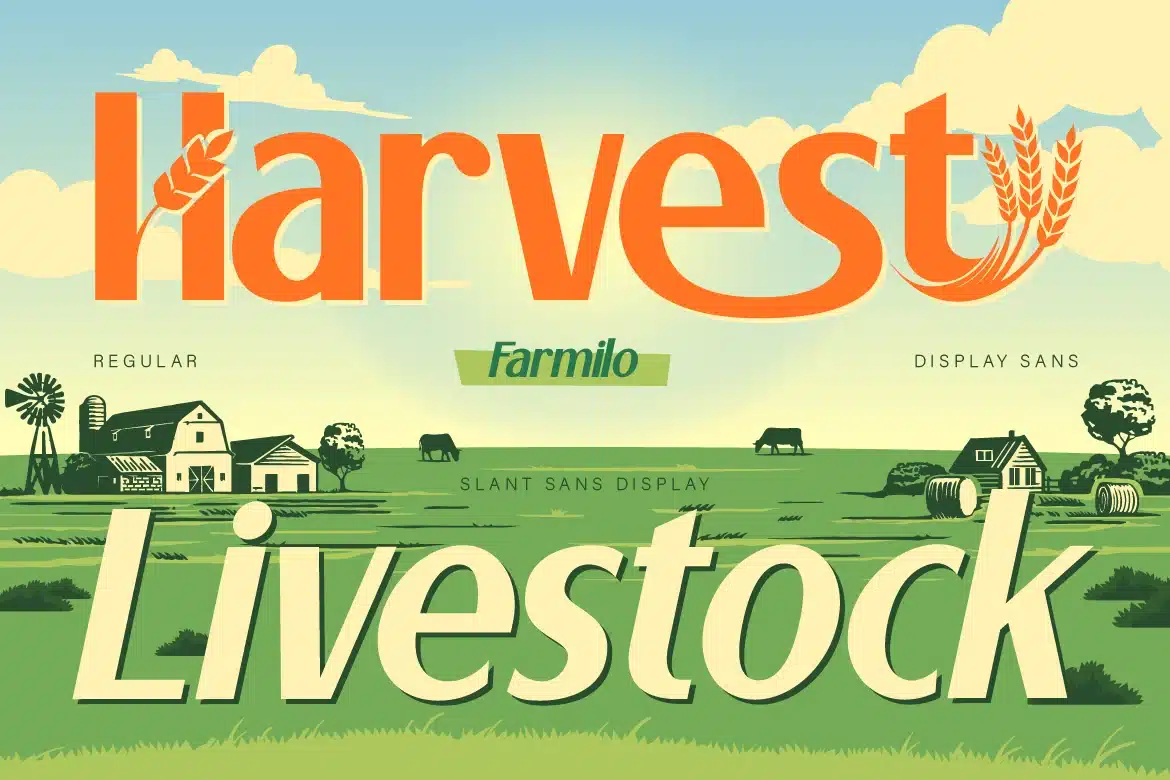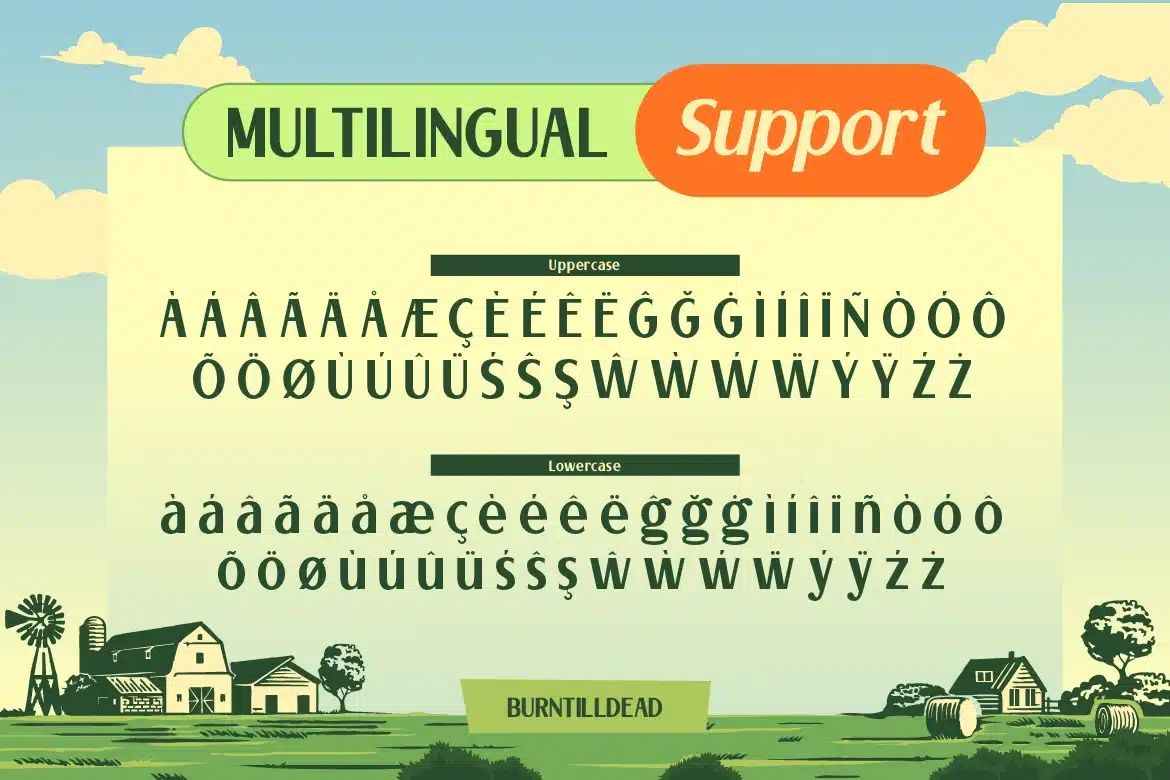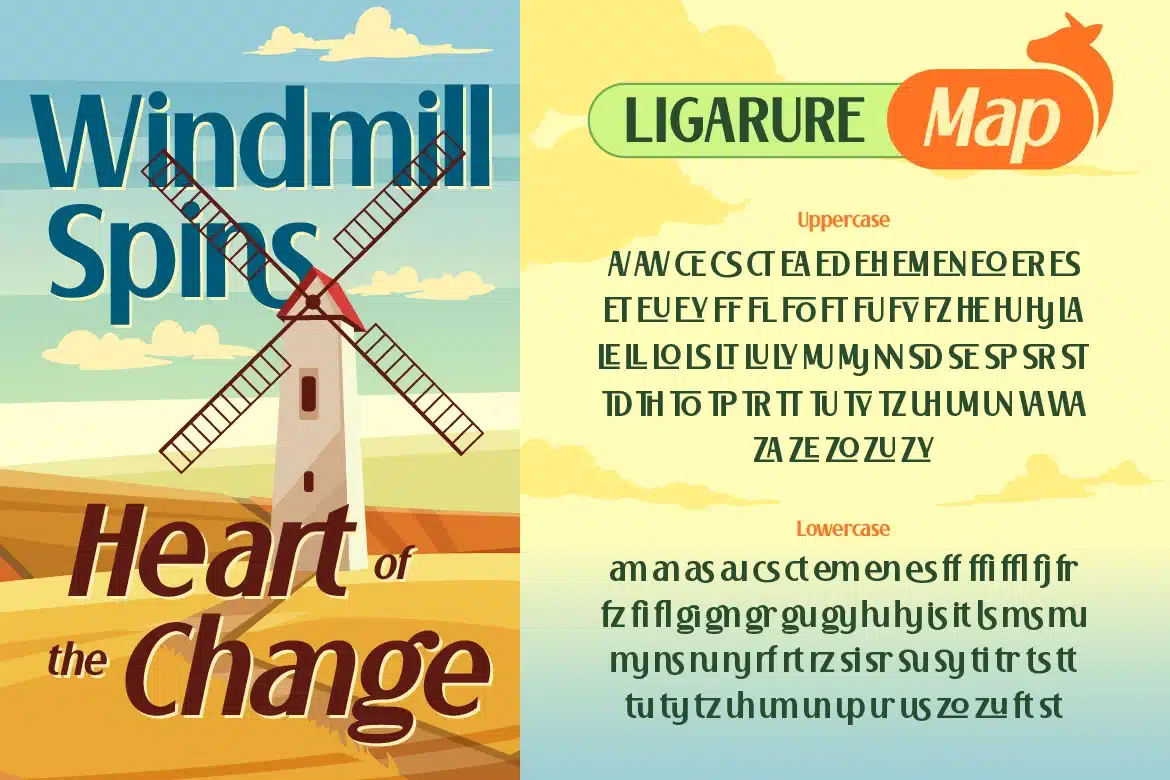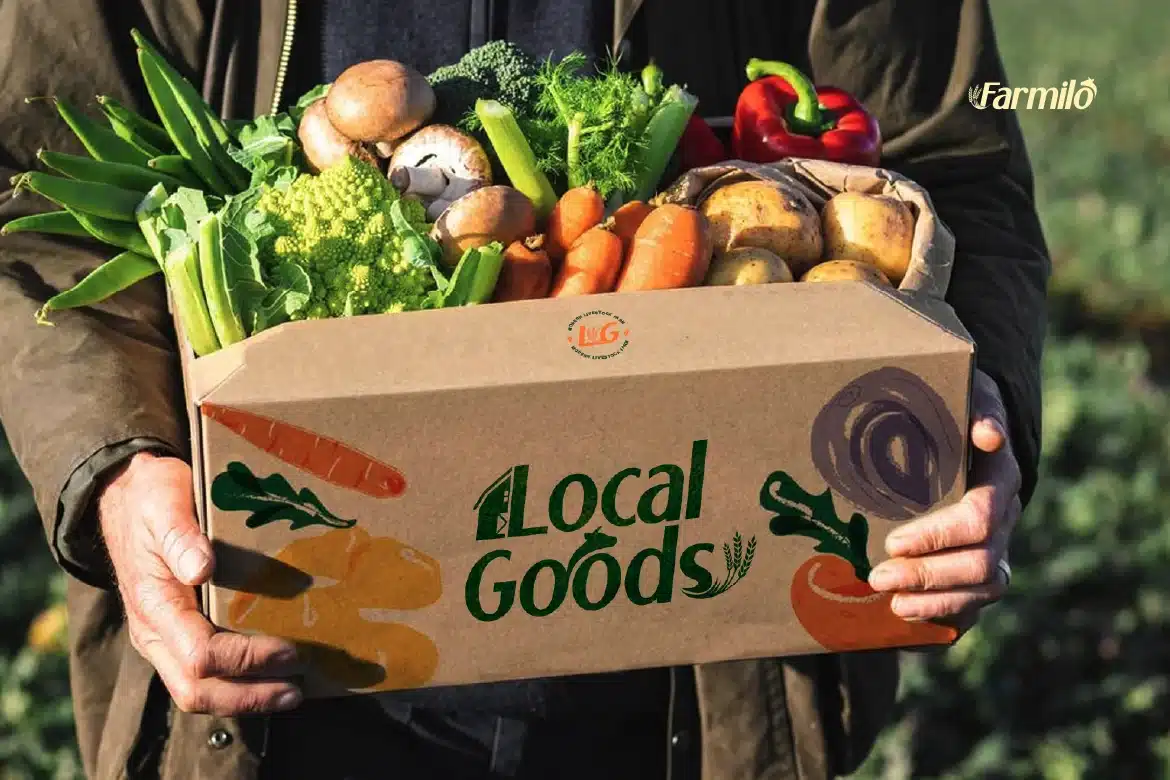
Farmilo Font
Farmilo is a fresh and friendly display font inspired by the beauty of countryside life and agricultural landscapes. Designed with a clean sans-serif structure and a subtle slanted style, this font brings a perfect balance between modern simplicity and rustic charm.
What makes Farmilo stand out is its unique personality. The letterforms are smooth, bold, and easy to read, while the carefully crafted alternates add a playful touch, featuring elements inspired by farming such as wheat and organic curves. This makes your designs feel more alive, warm, and naturally engaging.
Farmilo comes in two styles: Regular, which is clean, stable, and highly readable, and Slant, which feels more dynamic, stylish, and expressive. This font is perfect for a wide range of projects, especially those related to farm and agriculture branding, organic food packaging, local markets and grocery designs, eco-friendly products, restaurant and café branding, as well as logo design, posters and social media..